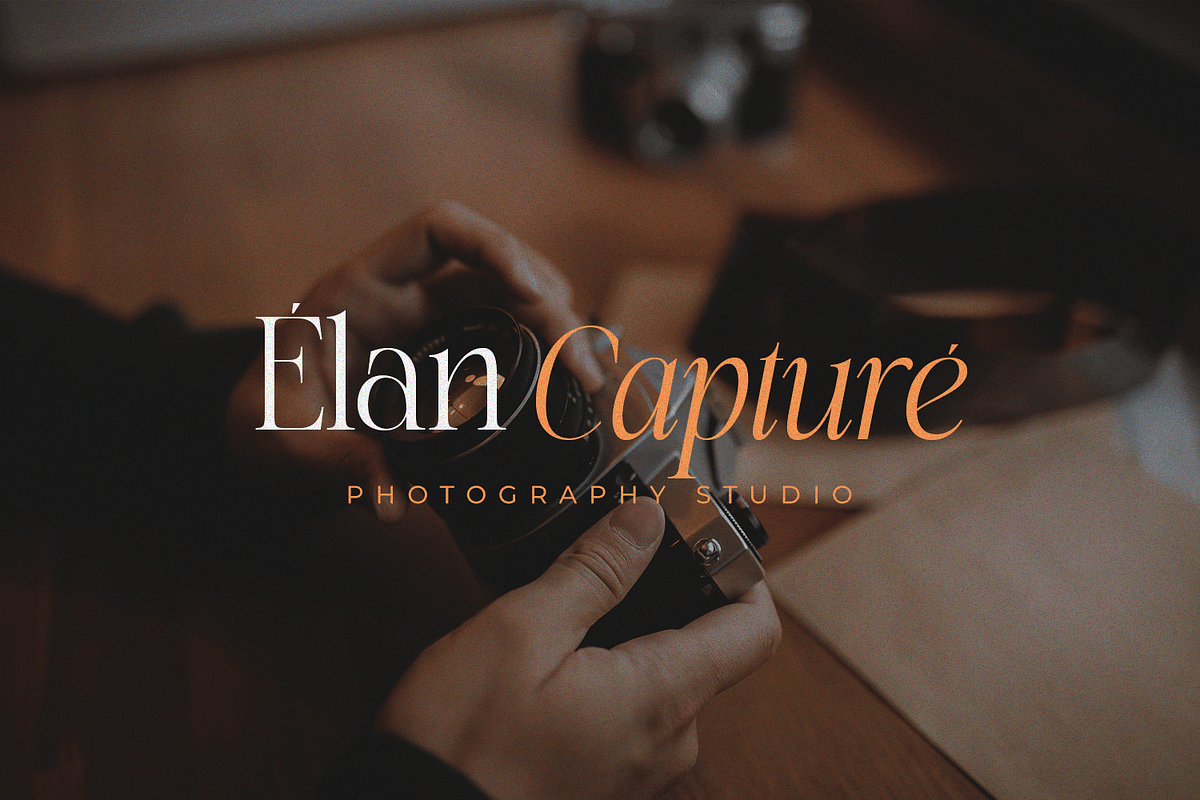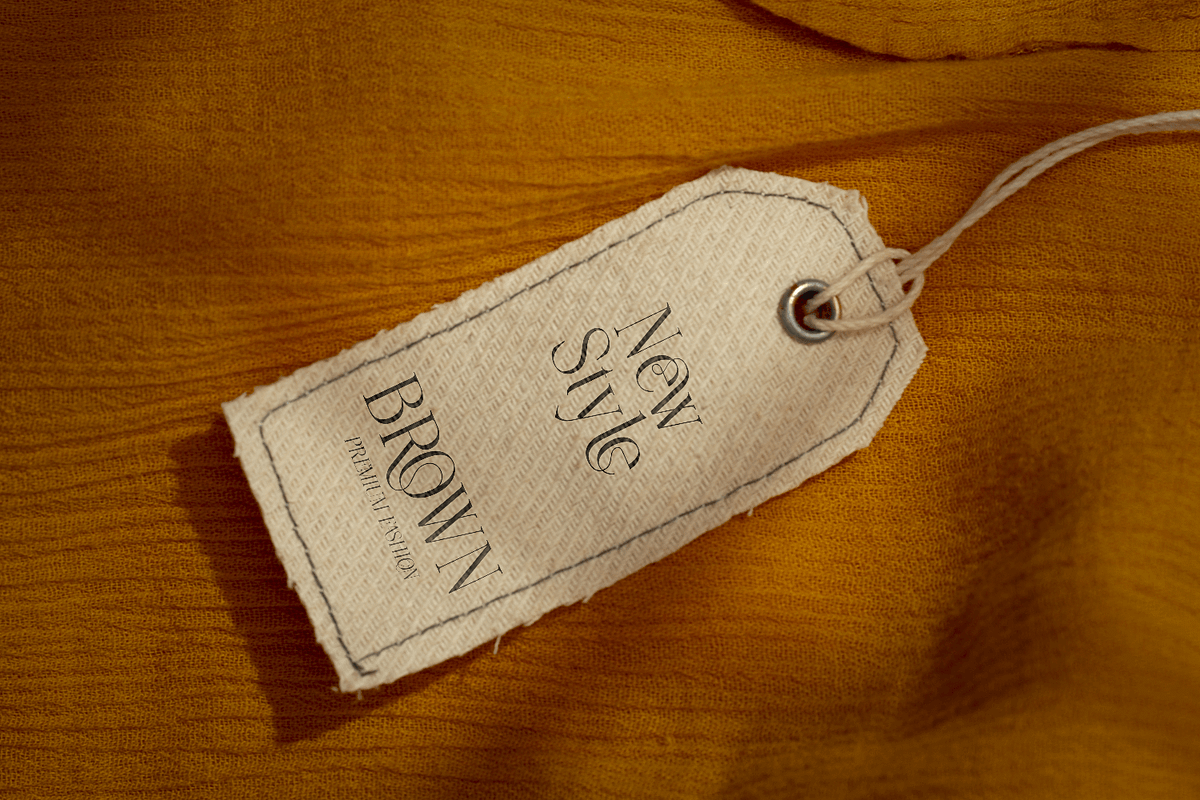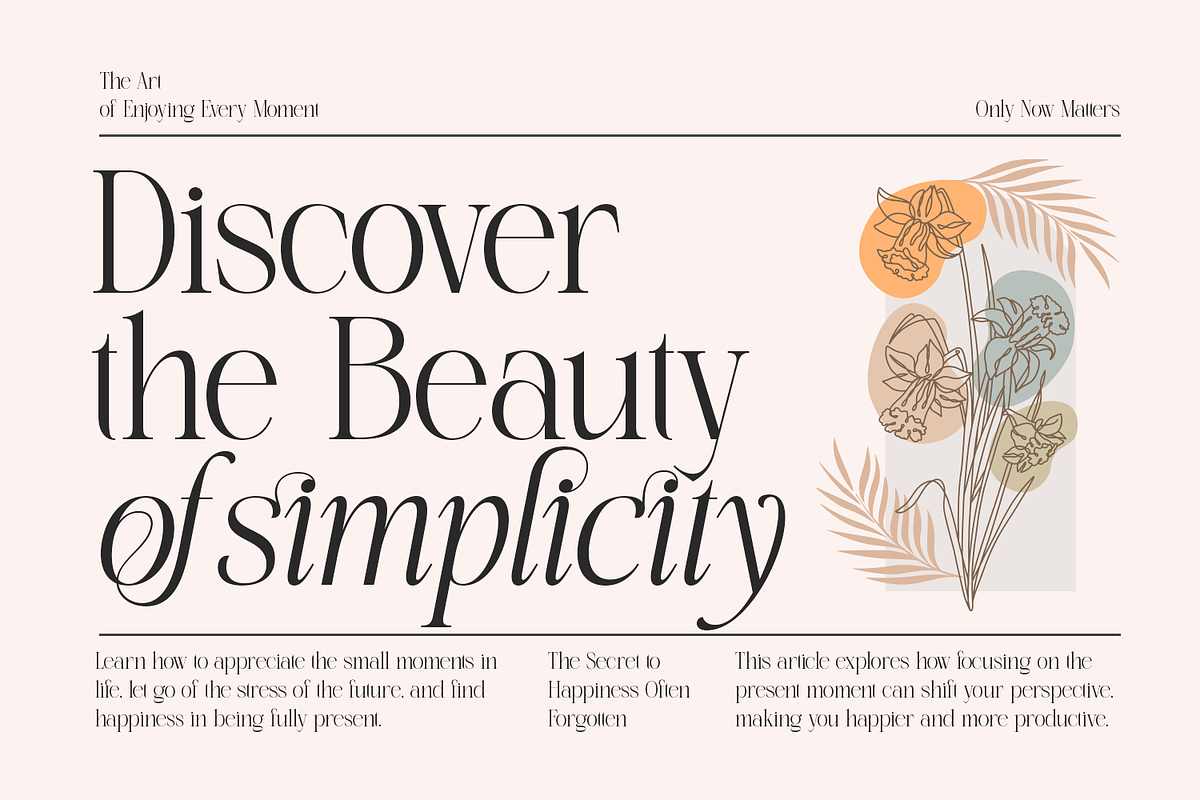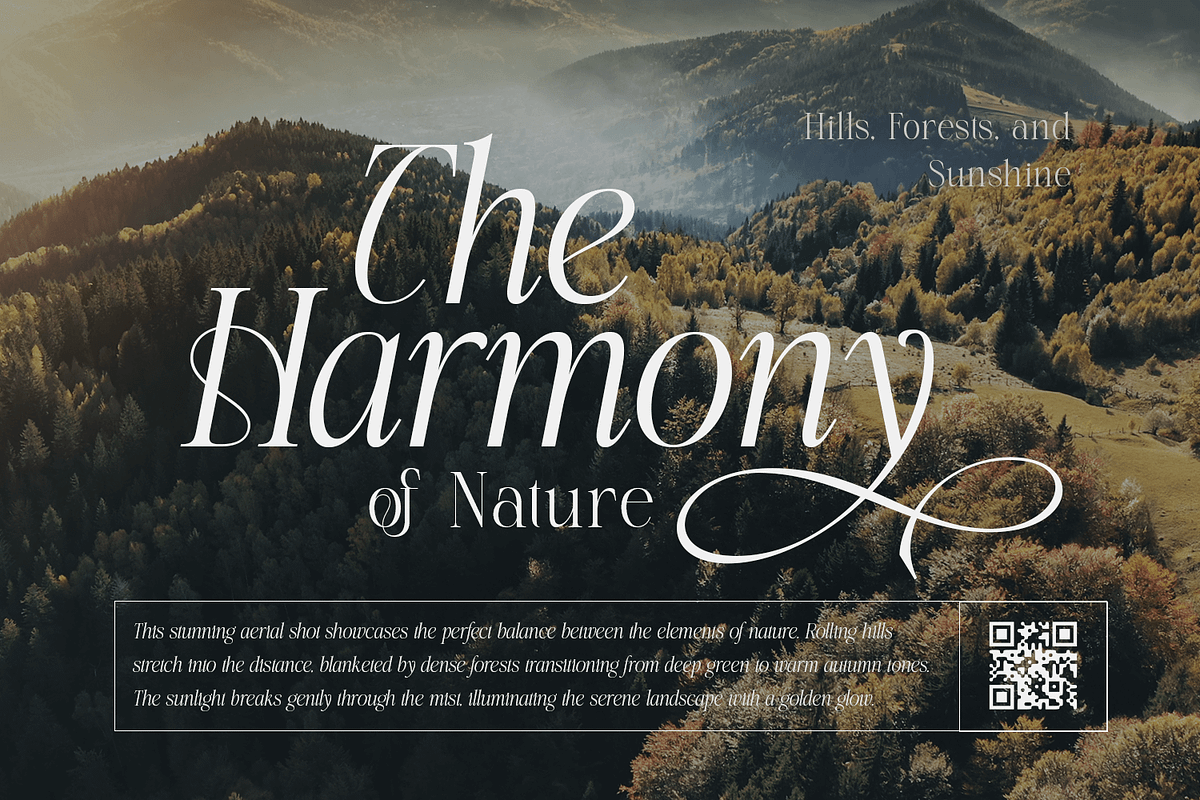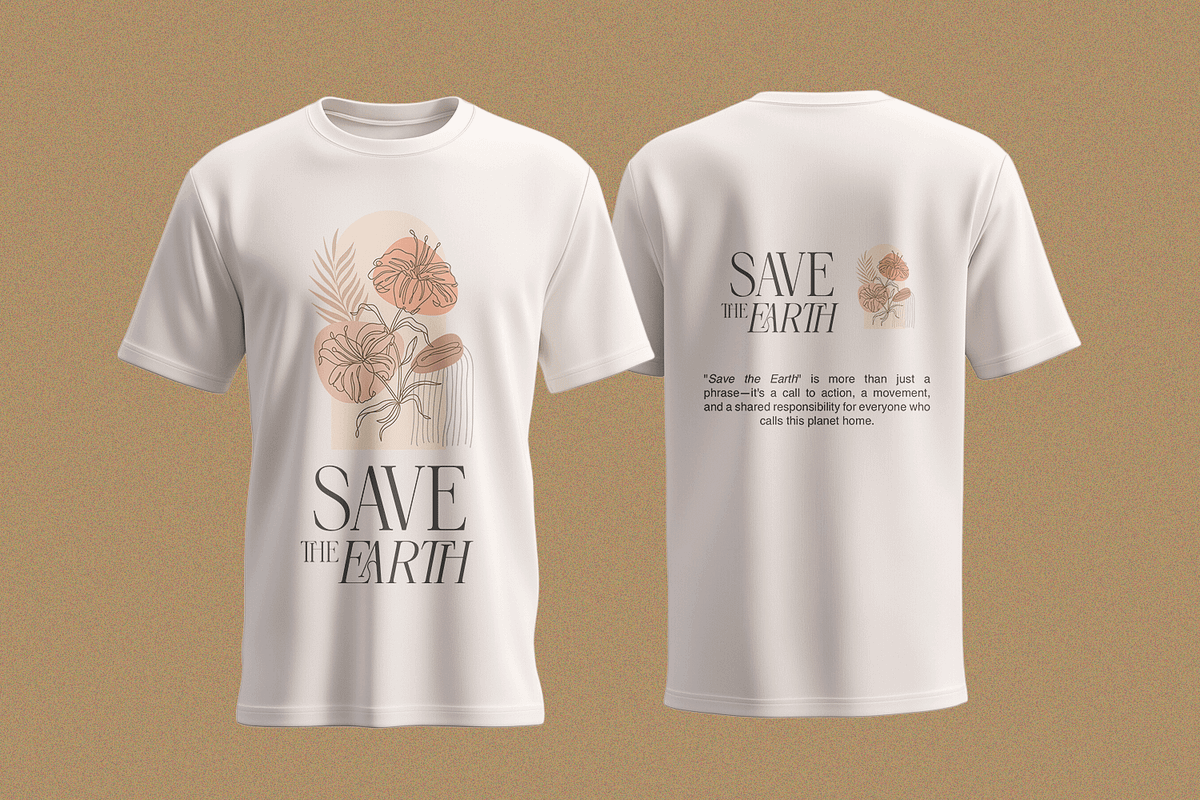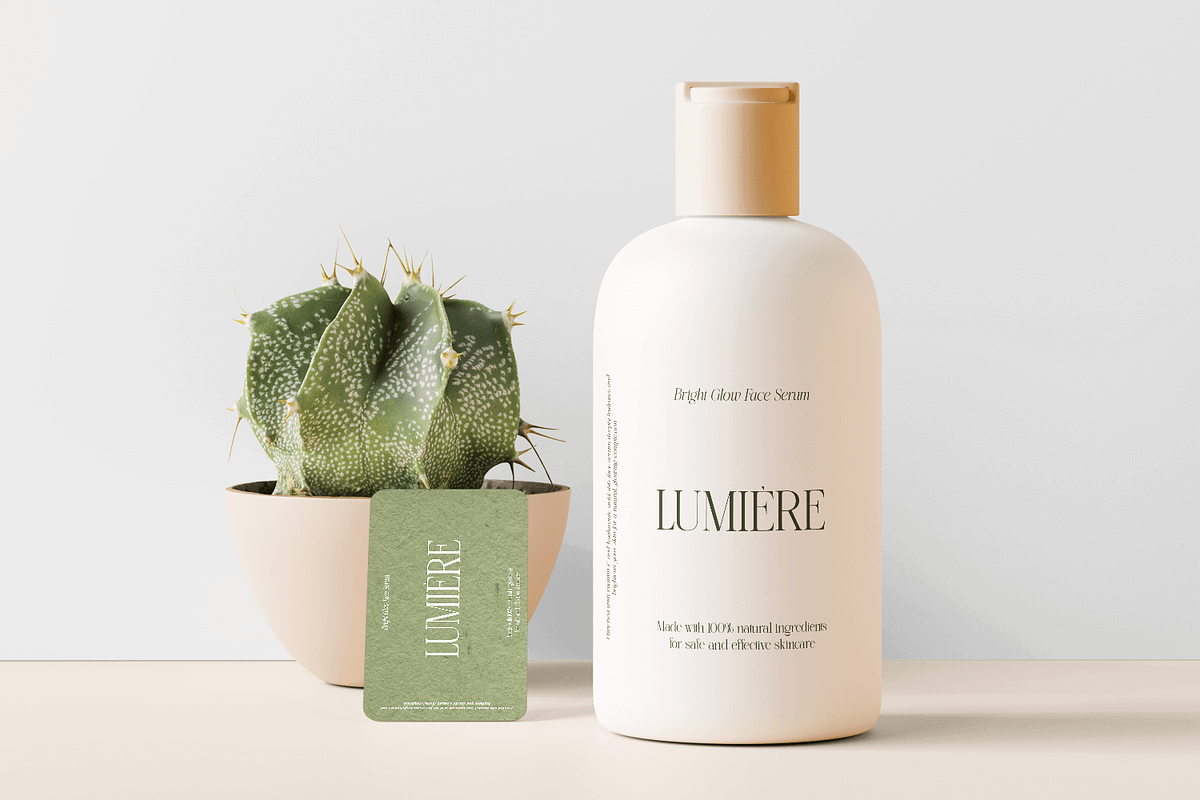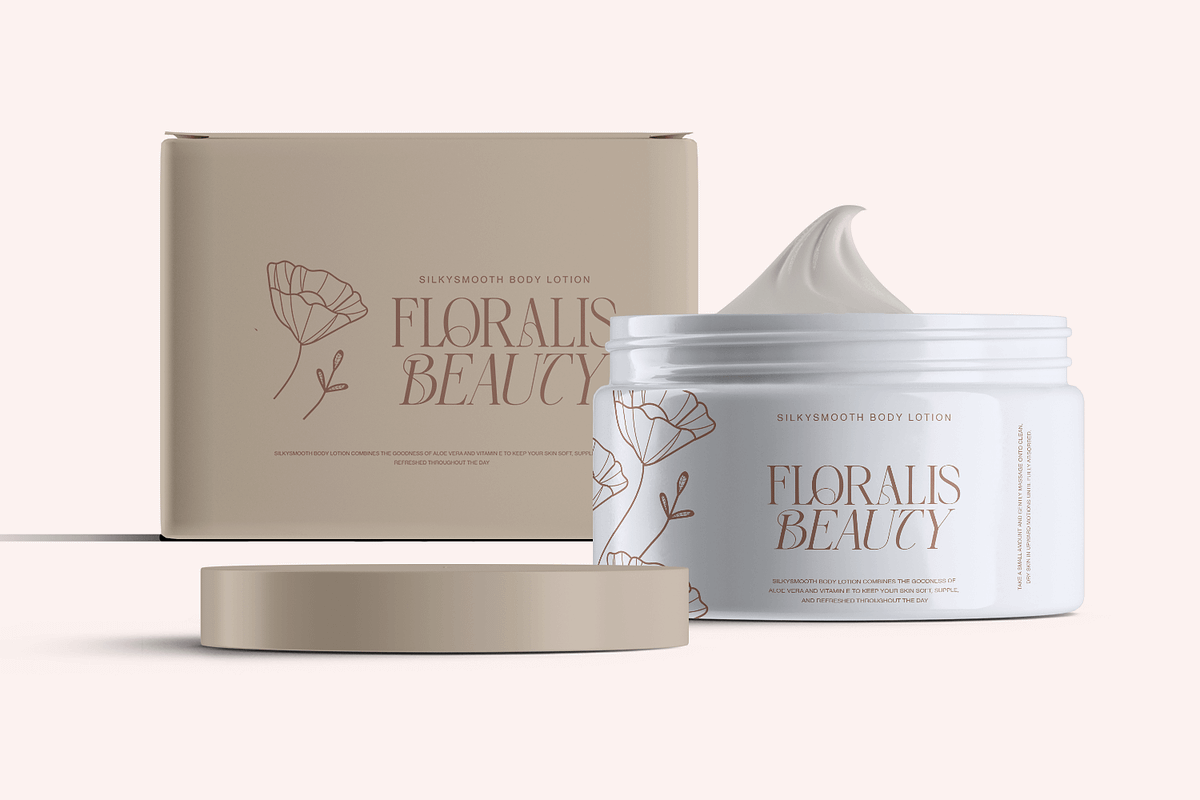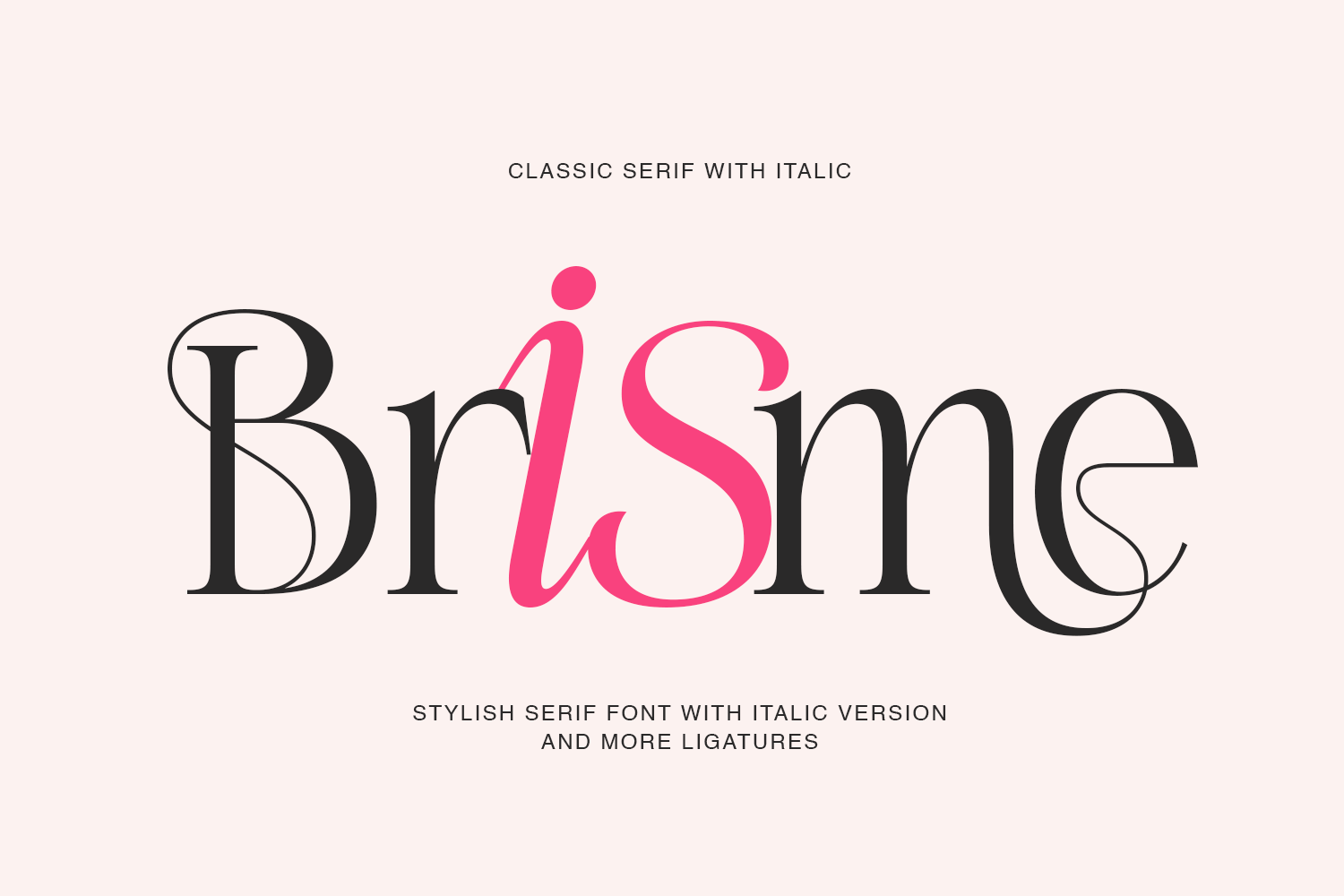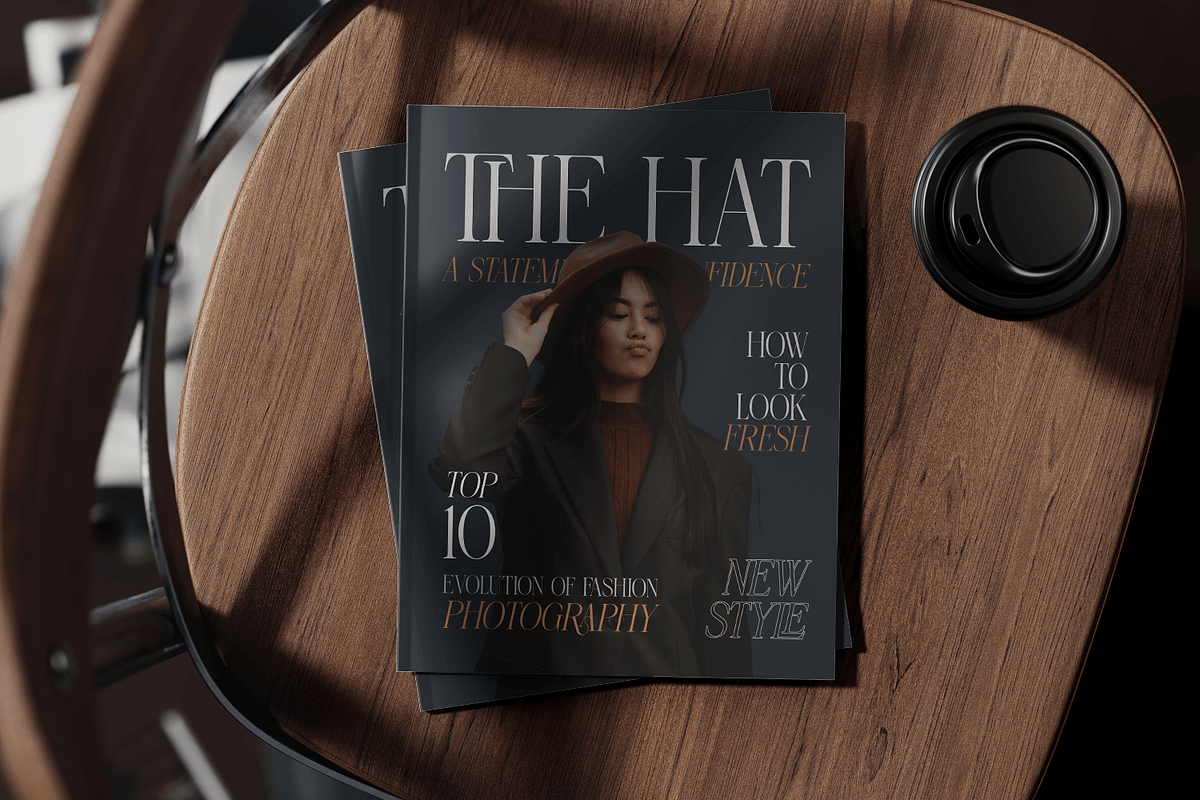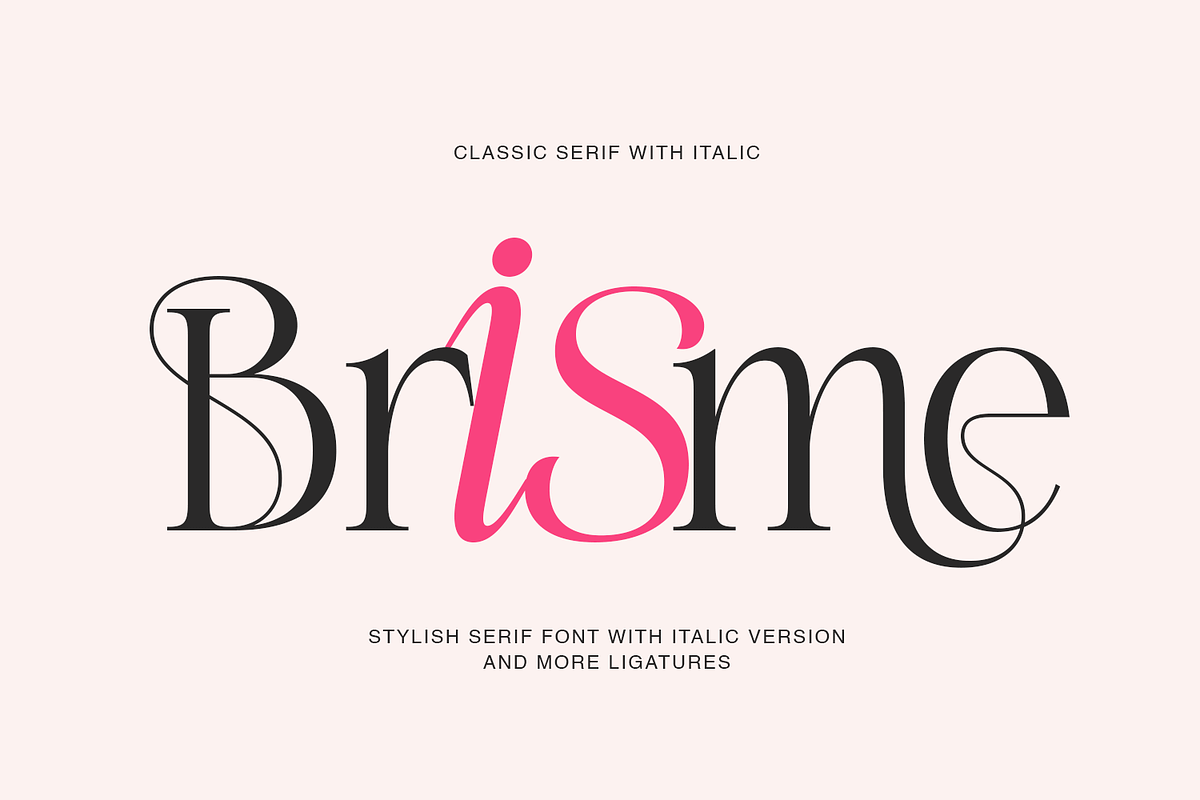
Brisme - Modern Luxury Serif Font
Introducing Brisme - Modern Luxury Serif Font
Brisme is a modern luxury serif font that exudes elegance with its high-contrast design, specifically crafted to create striking design statements. It brings sophistication and precision to headlines, luxury branding, and editorial layouts, perfect for projects that demand an exclusive feel.
Brisme is perfectly suited for branding, logotypes, wedding invitations, romantic quotes, labels, social media posts, advertisements, product packaging, product designs, label, photography, watermark, invitation, stationery and any projects seeking premium quality and luxury and aesthetic feel.